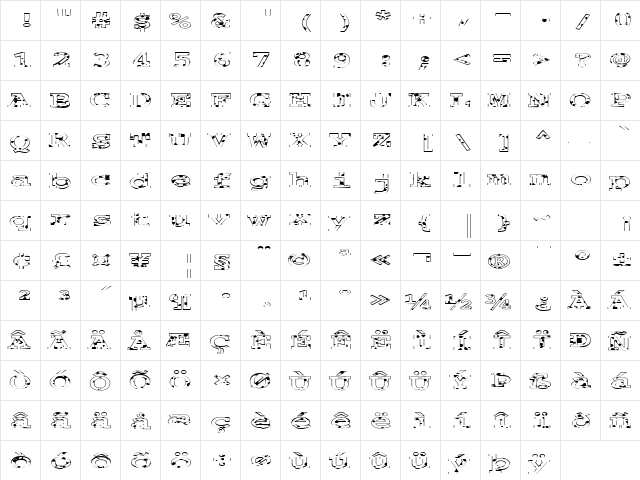
FZ BASIC 54 SPOTTED EX Normal
FZ BASIC 54 SPOTTED EX is a composed and adaptable typeface that performs quietly and consistently across a wide range of design contexts.